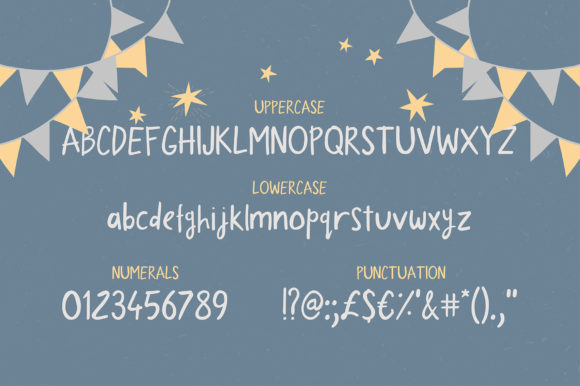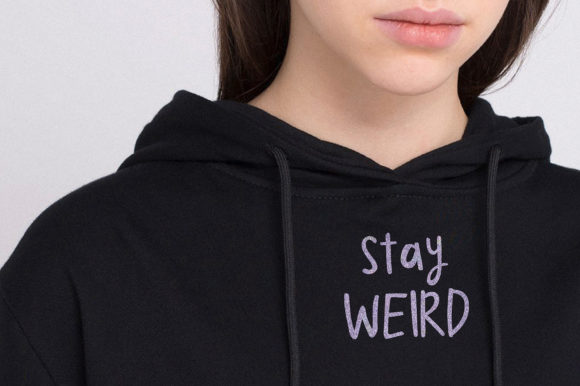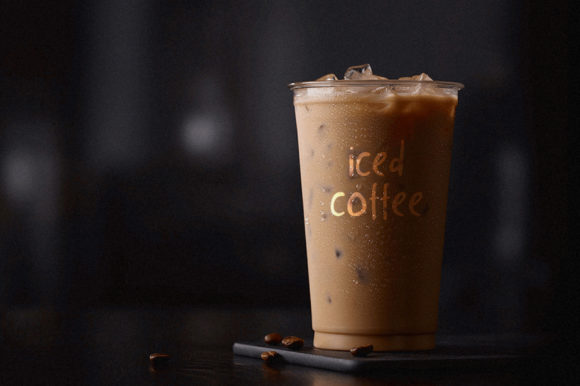
Discover the Perfect Touch with Kit Cloudkicker Font
Enter the Kit Cloudkicker Font – a cute and casual handwritten font that’s sure to bring a smile to your face. This delightful font is perfect for cartoon-related designs, children’s games, and any creation that needs a lovely touch. With its charming and whimsical feel, Kit Cloudkicker Font is an amazing choice for designers looking to add a personal touch to their work.
- Font Family: Kit Cloudkicker Font is a sans-serif font family designed for digital use.
- Size: The font family includes a range of weights from Thin to Black, with 8 weights in total.
- Unique Characteristics: The font features a unique, hand-drawn feel with a subtle rounded edge, making it suitable for modern and creative designs.
Kit Cloudkicker Font Review
Kit Cloudkicker Font is an interesting addition to the world of typography. I must say, I was drawn to its unique characteristics and quirky charm. ✨ The font’s playful feel is reminiscent of handwritten script, making it perfect for creative and whimsical projects. It’s great for headings, titles, and even short paragraphs of text.
- ✨ Highly legible and readable, even at smaller font sizes
- ✨ Unique and quirky design that adds a touch of personality to any project
- ✨ Works well in digital and print formats
However, I do have some reservations about this font. ⚠️ One of the main limitations is its lack of versatility. It’s not suitable for formal or professional projects, and it may not be the best choice for long blocks of text. Additionally, the font’s irregularities can make it difficult to read at high speeds.
Overall, I think Kit Cloudkicker Font is a fun and creative choice for the right projects. While it may not be the most practical option for every situation, it’s definitely worth considering for projects that require a touch of whimsy and personality.
The Kit Cloudkicker Font is ideal for use in titles, headings, and short paragraphs. It works well in digital and print designs, including posters, flyers, and business cards. Use the font to create a unique and eye-catching visual identity for your brand.